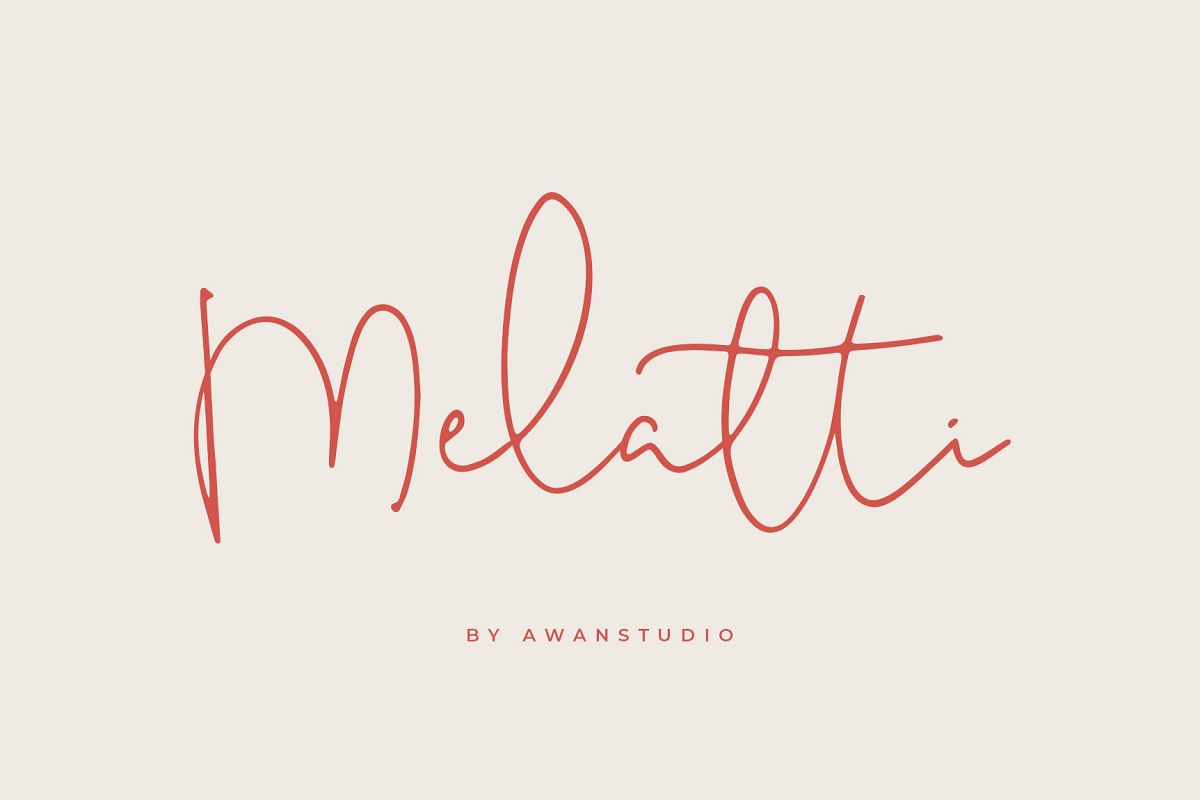
Melatti Font
Melatti is a fun and cute handwritten font with an amazing feel. It will add a smart charm to any design project!
Melatti contains standard characters, lowercase, uppercase, numbers, punctuation, ligatures, and international characters. You will receive OTF and TTF files.